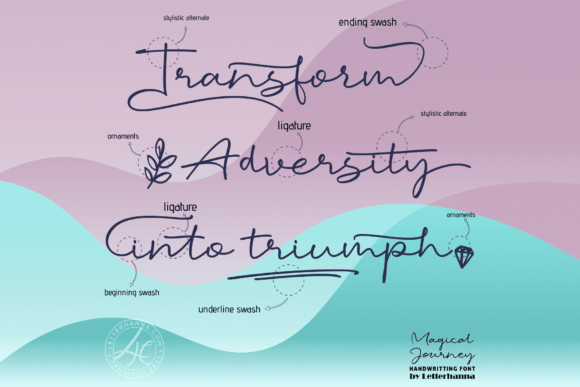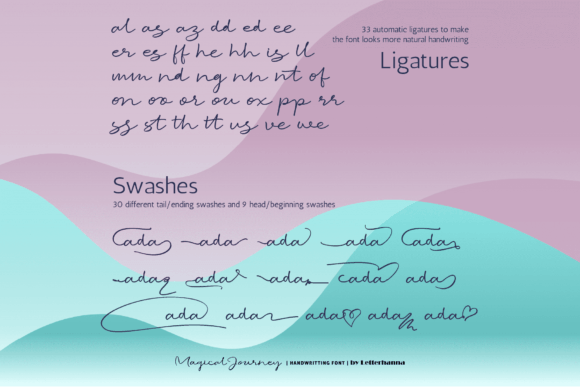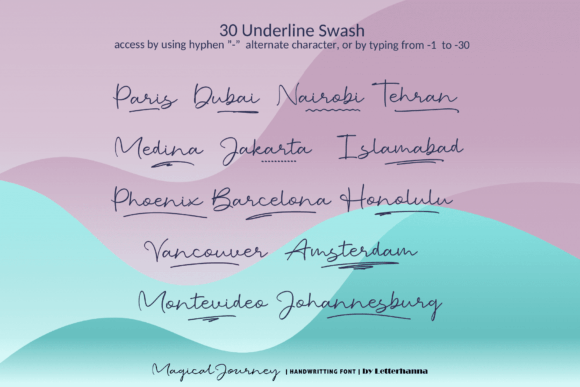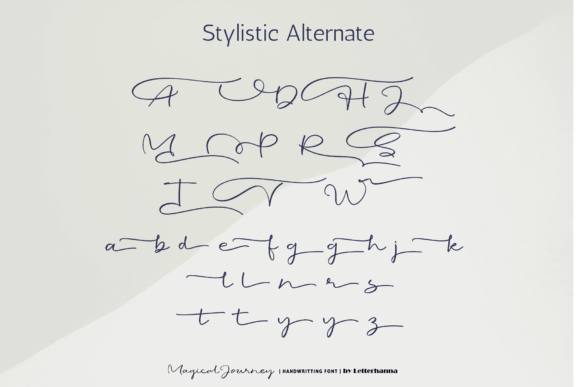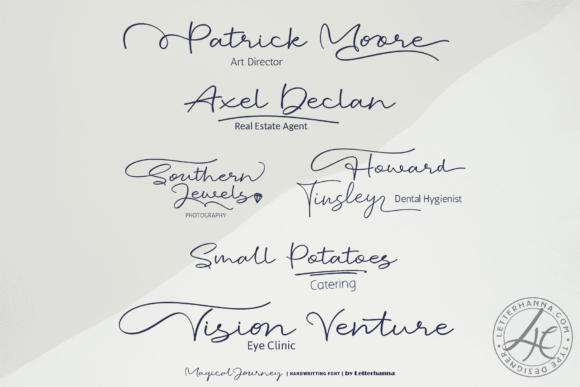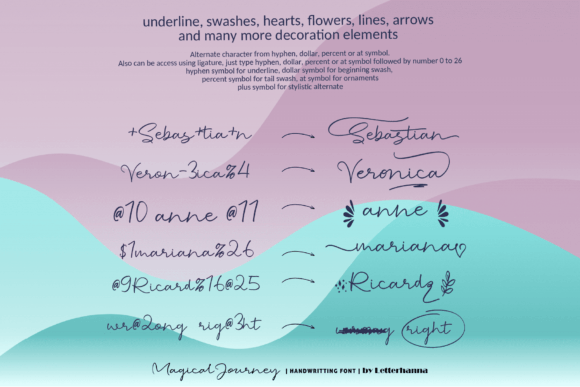
Introduction to Magical Journey Font
Magical Journey is a captivating handwritten script font that invites you to embark on a whimsical adventure through its enchanting curves and graceful strokes.
This font encapsulates the essence of imagination and wonder, as if each letter carries the secrets of a fantastical realm waiting to be explored With its intricate details and flowing lines, Magical Journey captures the spirit of curiosity and excitement, making it the perfect choice for projects that seek to infuse a touch of magic into every word.
Key Features of Magical Journey Font